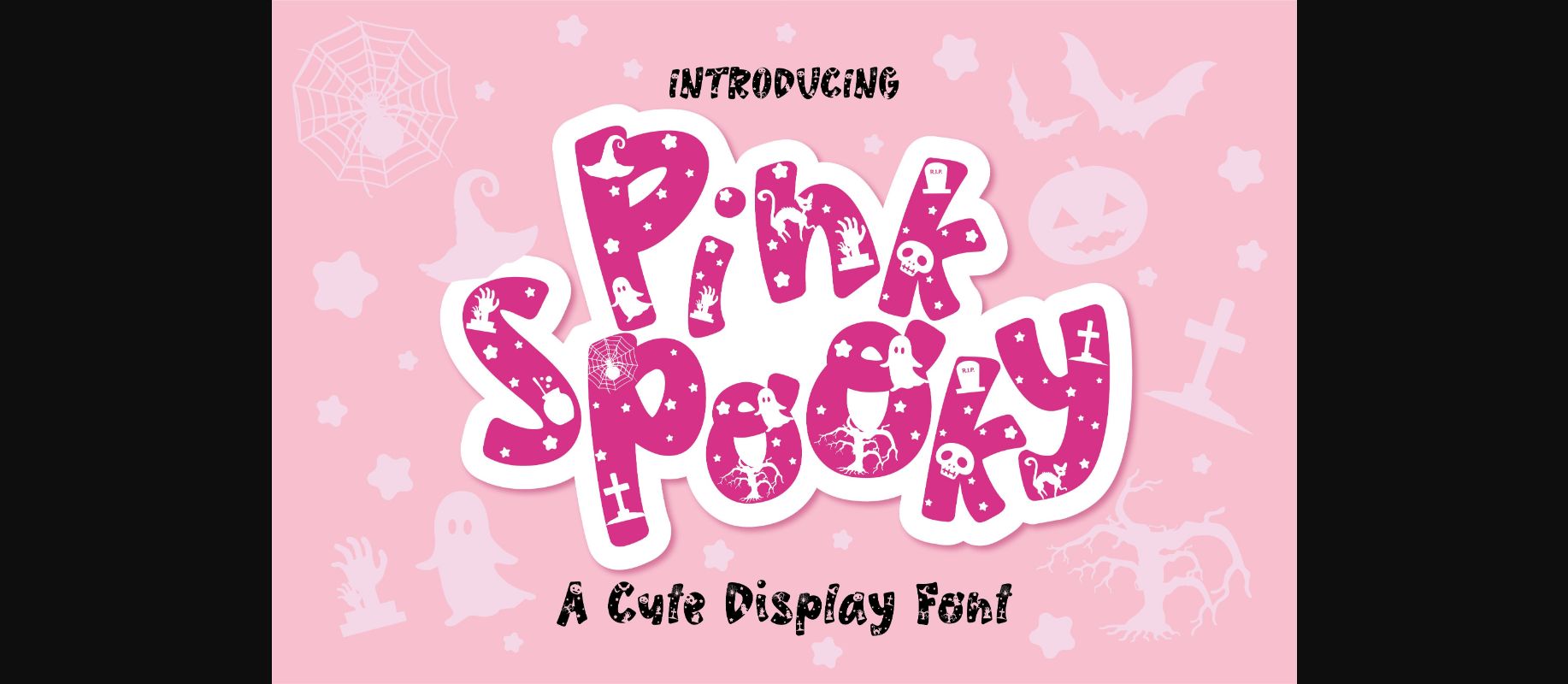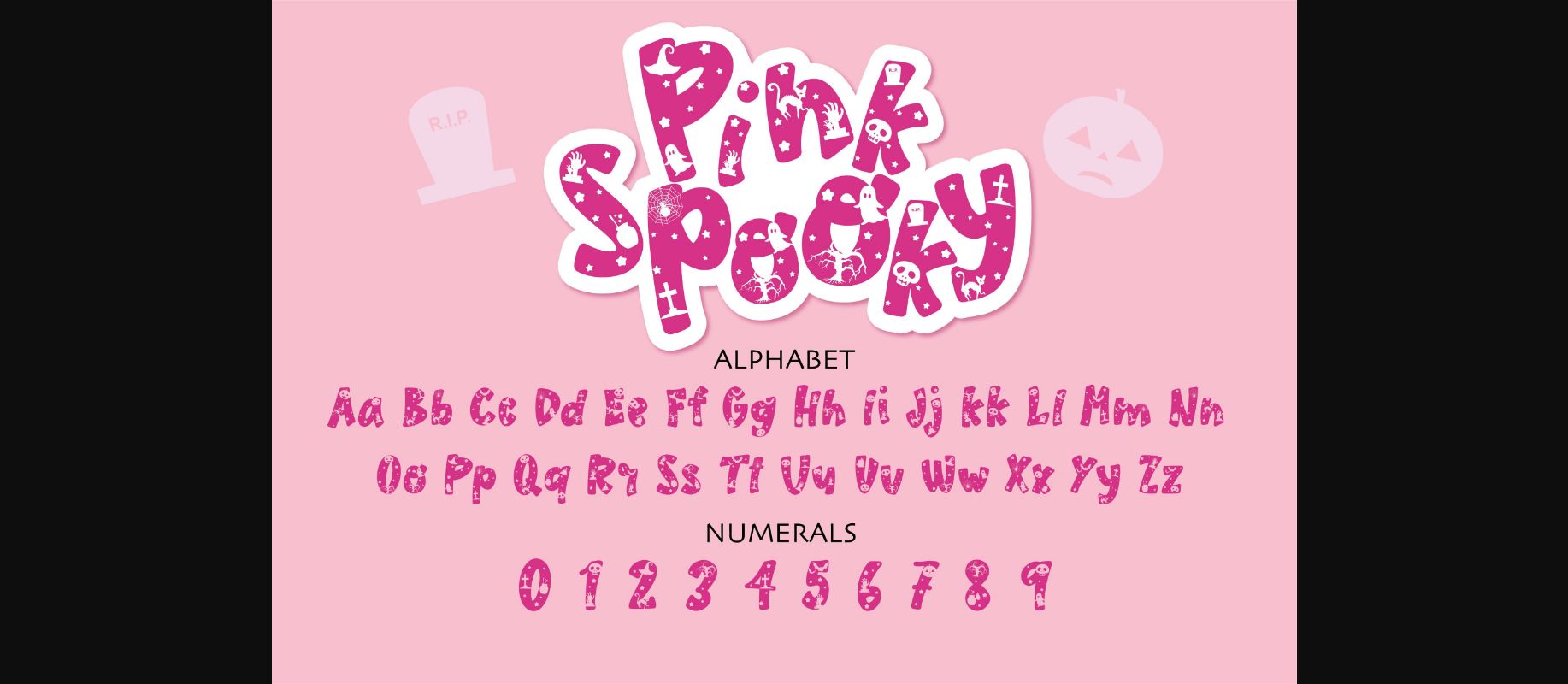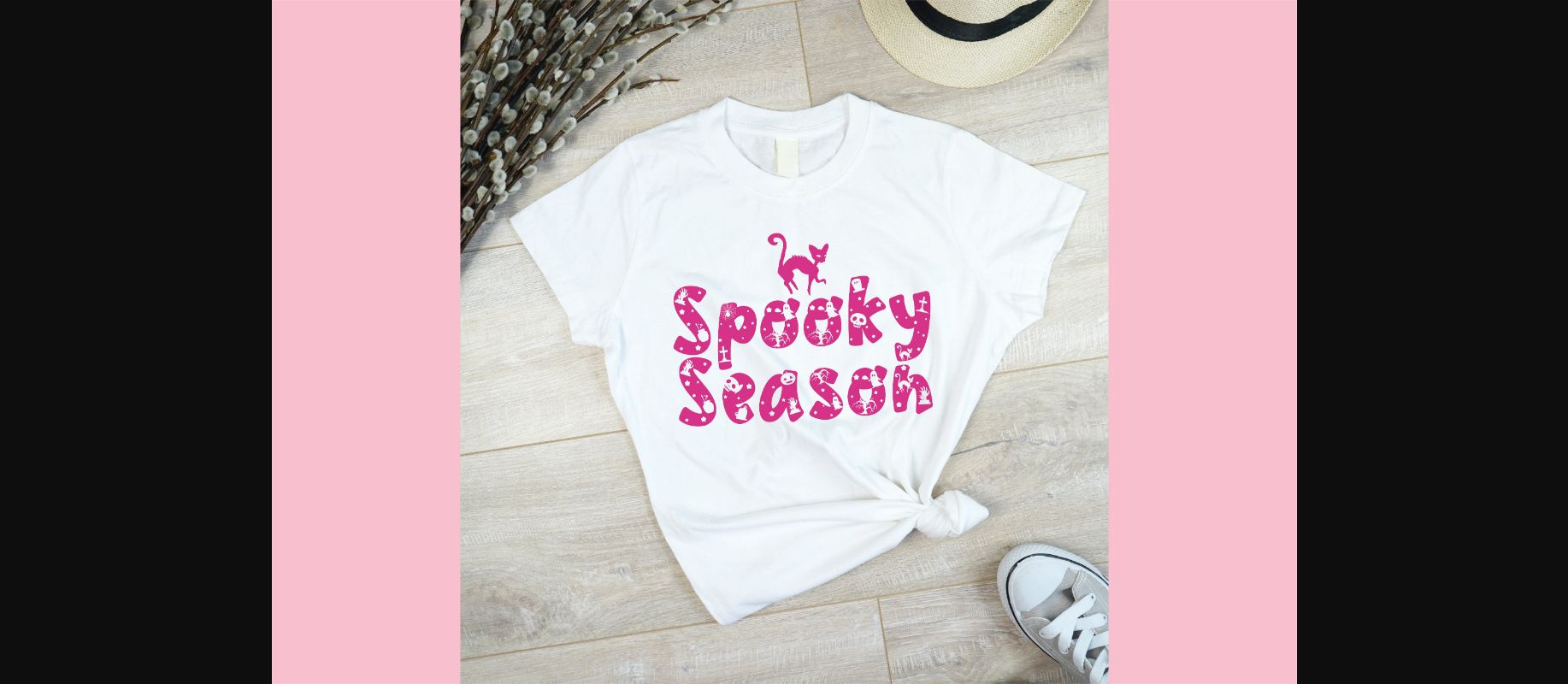
About Pink Spooky Font
Pink Spooky is a fun and adorable decorative font. Its natural and unique style makes it incredibly fitting to a large pool of designs. The only limit is your imagination!